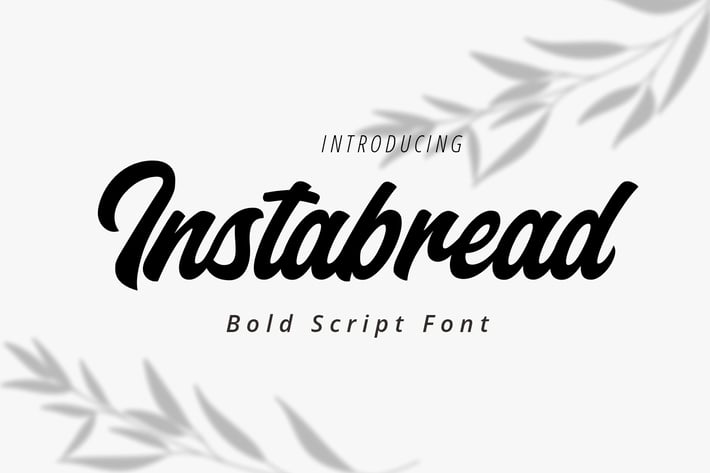
Instabread Bold Script Font
Instabread, a bold script font that is suitable for headline, logotype, apparel, invitation, branding, packaging, advertising etc. This typeface is comes in uppercase, lowercase, large range of punctuation, symbols & numerals, contextual alternates and ligatures, also support multilingual.